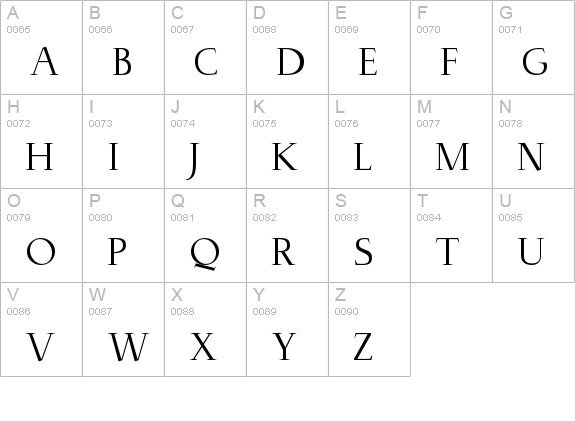
Knaudens Font Details
Knaudens font is a stunning display font that exudes elegance and sophistication. With its unique and intricate letterforms, this font is perfect for adding a touch of luxury to any design project. Whether you're creating beautiful wedding invitations, eye-catching logos, or stylish branding materials, Knaudens font is sure to make a lasting impression. What sets Knaudens font apart is not only its impeccable design, but also the fact that it is free. Yes, that's right – this incredible font is freely available to download at FontsMarket.com. Now you can elevate your designs without breaking the bank. The attention to detail in Knaudens font is truly remarkable. Each letter is crafted with precision, showcasing delicate curves and sharp edges that create a harmonious balance. The generous spacing between characters ensures readability, making it suitable for both headline and body text. The versatility of Knaudens font is another reason to love it. It can be used in a variety of design projects, from print to digital. Its timeless appeal makes it a great choice for everything from elegant wedding stationery to high-end fashion branding. Downloading Knaudens font from FontsMarket.com is quick and easy. Simply visit the website, search for Knaudens font, and click the download button. Once downloaded, you can start unleashing your creativity and incorporating this beautiful font into your designs. Don't miss out on the opportunity to enhance your designs with Knaudens font. Download it for free today and elevate your creations to new heights.